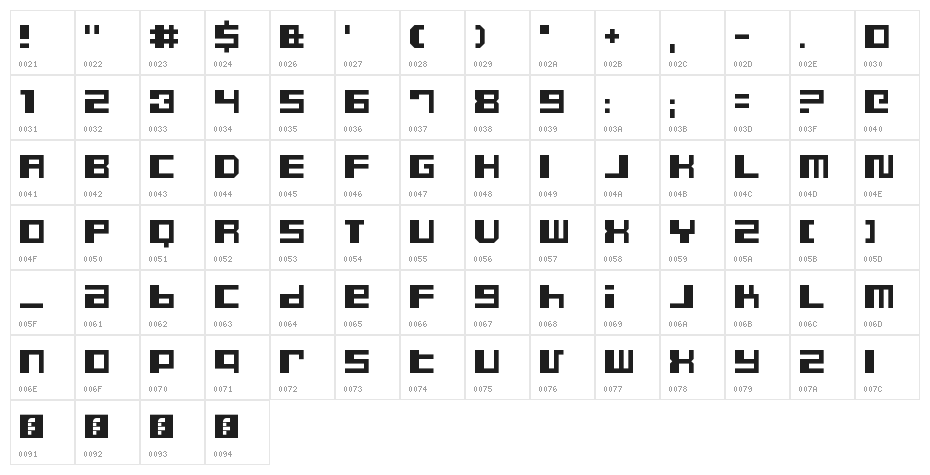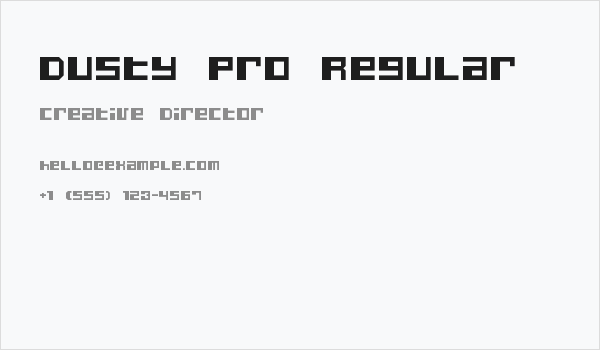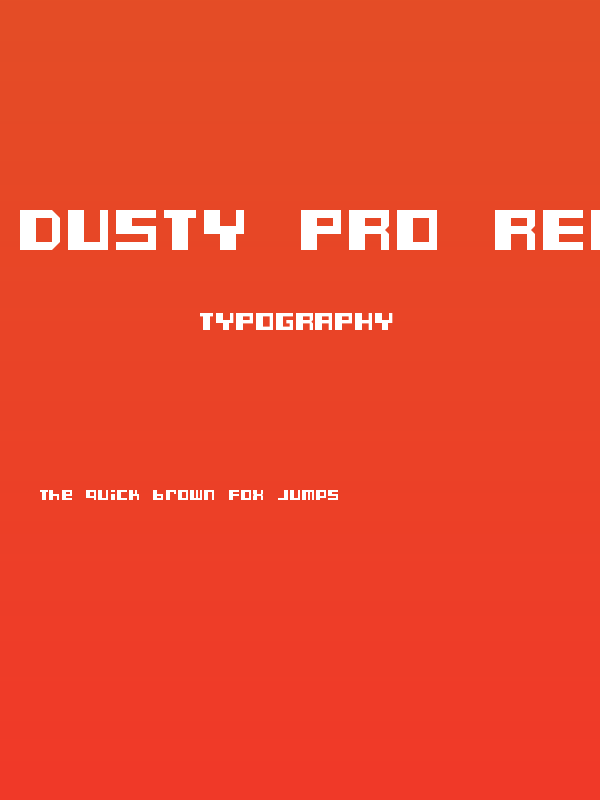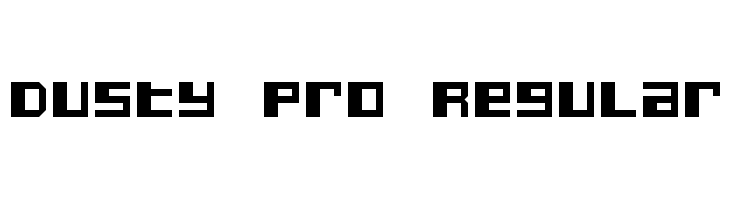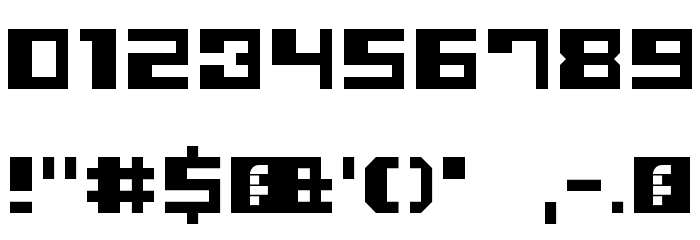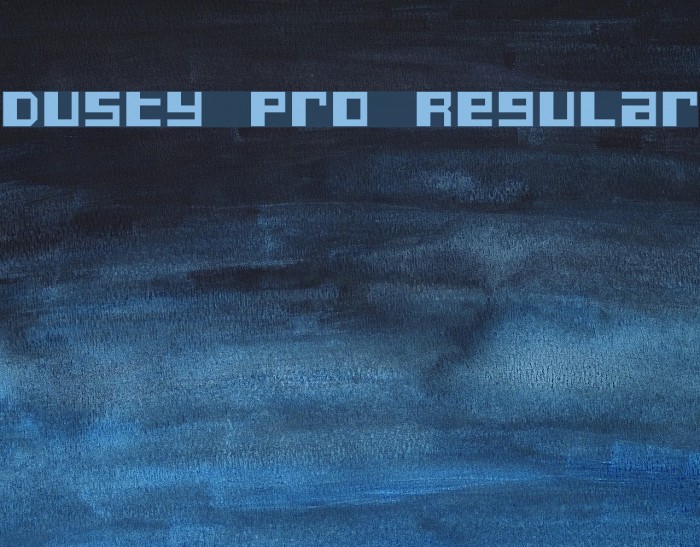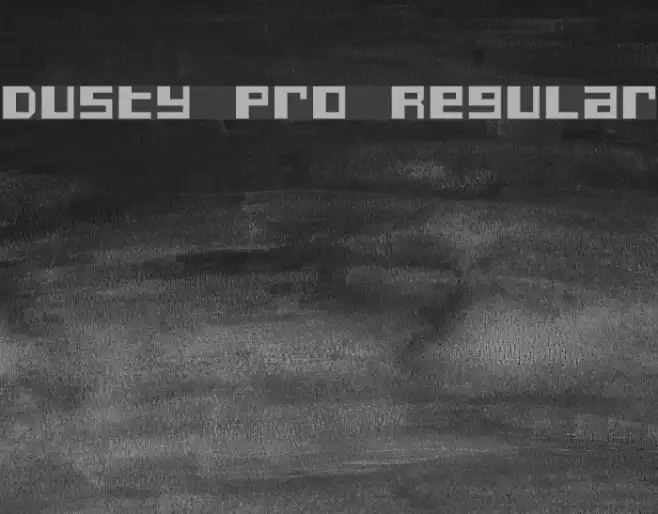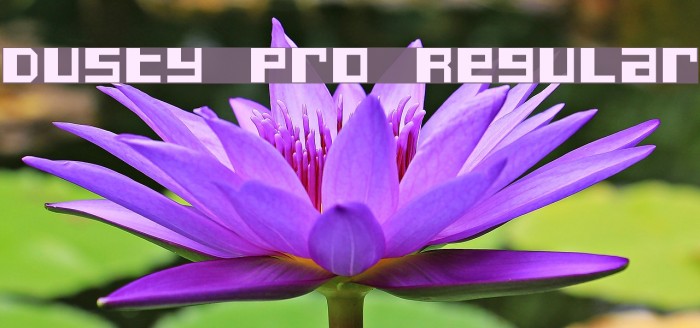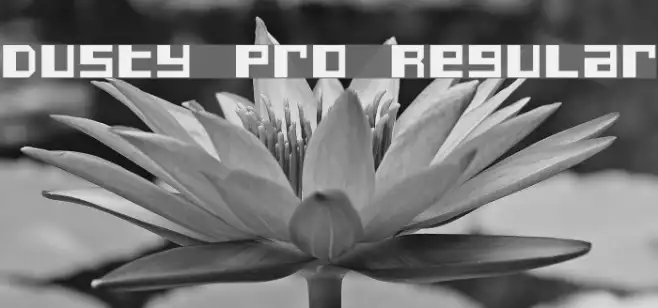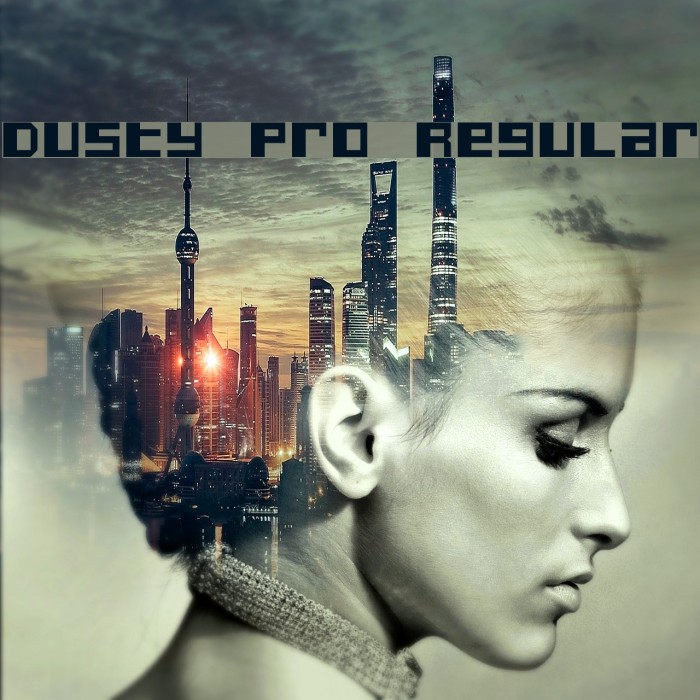
Dusty Pro Regular Font
Dusty Pro Regular Description
This font features a bold, geometric design with a strong, blocky appearance. Each character is constructed with sharp angles and straight lines, giving it a futuristic and digital feel. The uniformity in height and width across both uppercase and lowercase letters creates a cohesive and structured look. The numerals and special characters maintain the same angular style, ensuring consistency throughout the typeface. This font is highly legible and impactful, making it suitable for attention-grabbing designs.
| Proposed Projects | Ideal for technology branding, video game titles, sci-fi posters, and digital interfaces. |